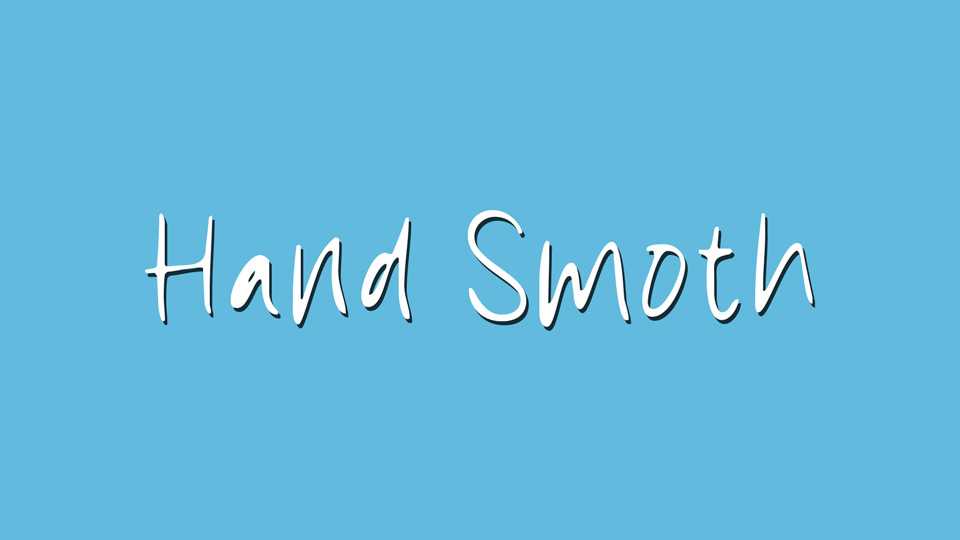
Download Hand Smoth font, a handcrafted textured typeface with a quirky and informal look. Add a funky and whimsical touch to your designs with Hand Smoth font.